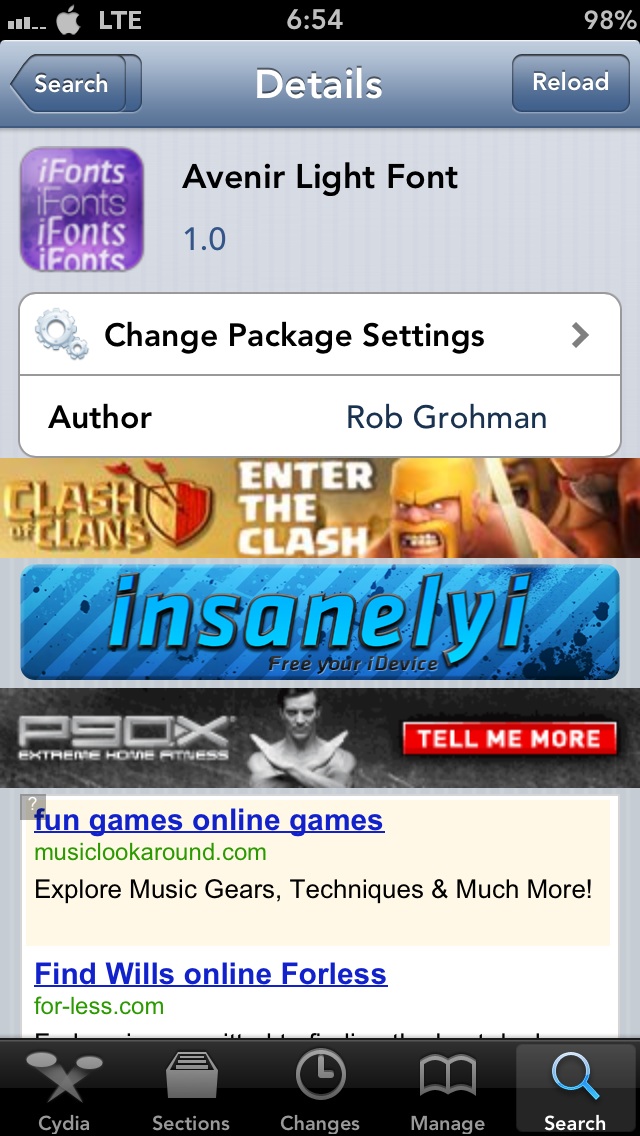
On a side note: I suppose it's just human behavior, but ever since I learned yesterday I couldn't locate or have this font it made me want it more.
There is a feeling of satisfaction now that I've downloaded and am using it!
Truth be told: I do like it better than the stock Apple font, but honestly, it isn't so different so as to light the world on fire.
On a side note: I suppose it's just human behavior, but ever since I learned yesterday I couldn't locate or have this font it made me want it more.
There is a feeling of satisfaction now that I've downloaded and am using it!
Truth be told: I do like it better than the stock Apple font, but honestly, it isn't so different so as to light the world on fire.
Gizmodo posted an article a while back postulating that Apple will actually move to Avenir as a system font pretty soon. It was included with iOS 6 and Mountain Lion. Definitely a natural evolution, and not a huge change, but this combined with Glasklart has finally given me the perfect theme. Nice and minimalistic.
I've used this font for ages now. It's my go to font. Usually I install this font and never change it until a new firmware jailbreak gets released and then I just end up using Ubuntu Titling lol.
I love it! I never change it either. I think it's very easy on the eyes and it's kind of cute! :)
I've used this font for ages now. It's my go to font. Usually I install this font and never change it until a new firmware jailbreak gets released and then I just end up using Ubuntu Titling lol.
I'm the same exact way. I'm gonna give Avenir Light a try, but I'm sure I'll end up right back at Ubuntu Titling. LOL.